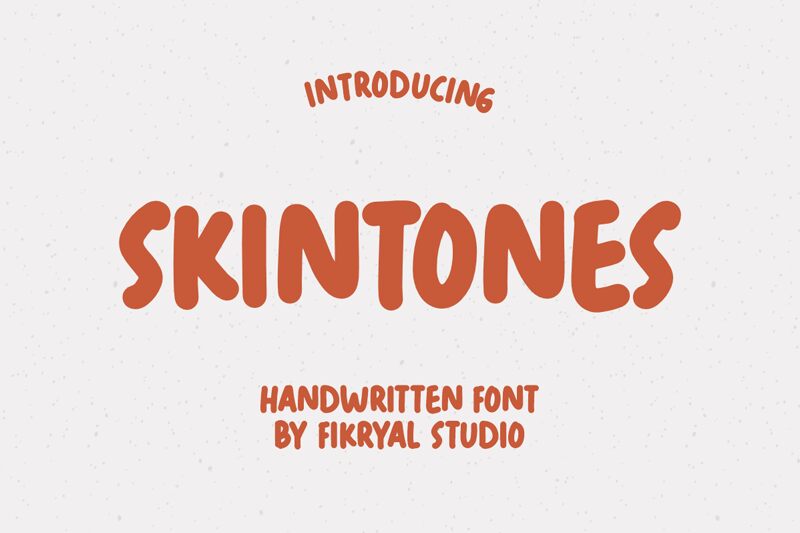
Skintones font, designed by Fikryal Studio, embodies a whimsical, handwritten style that bursts with personality. Its bold appearance captures attention effectively, lending a sense of warmth and approachability to any design. The fluid strokes create an inviting aesthetic that feels both artistic and personal, making it ideal for projects aiming to evoke emotion.
Perfect for branding, social media graphics, or playful print materials, Skintones is versatile enough to shine in various contexts. Whether you're looking to enhance a casual invitation or infuse character into a logo design, this font brings a unique charm that resonates with audiences and invites engagement. Embrace the distinctiveness of Skintones for your next creative endeavor.